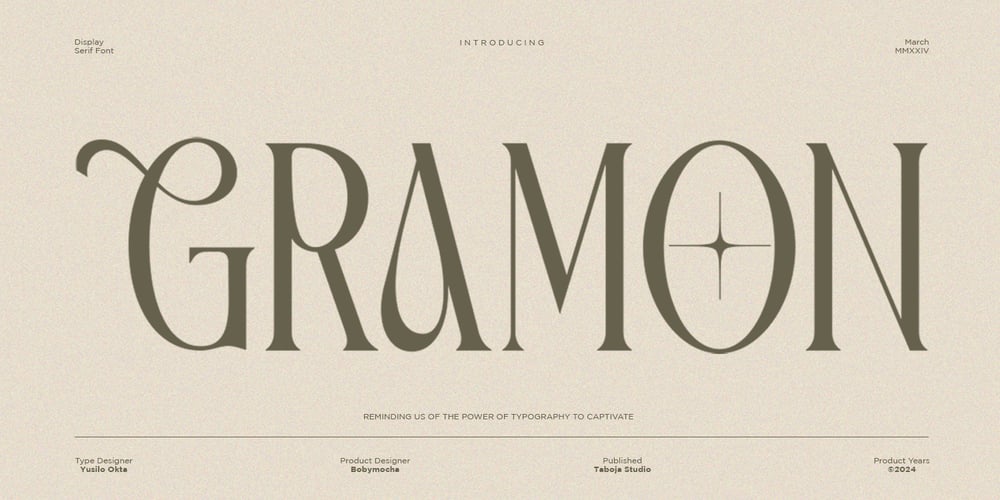
TBJ Gramon Condensed Stylish Font Family was designed by Yusilo Oktaprima Ardani and published by Taboja Studio. TBJ Gramon Condensed Stylish contains 1 styles and family package options. Introducing Gramon – a stunning condensed font that blends style and elegance in every detail. Designed to convey a modern and sophisticated impression, Gramon features sleek and elegant letterforms with harmonious proportions. Each character is meticulously crafted to provide a contemporary feel.Includes:RegularUppercase and LowercaseNumerals and Punctuation100 Various Alternates And LigaturesAccented charactersMultilingual SupportUnicode PUA EncodedWe highly recommend using a program that supports OpenType features and Glyphs panels such as Adobe Illustrator, Adobe Photoshop CC, Adobe Indesign, or CorelDraw, so you can see and access all Glyph variations.While using this product, if you encounter any problem or spot something we may have missed, please don’t hesitate to drop us a message. We’d love to hear your feedbacks in order to further fine-tune our products.Stay creative and have a wonderful day.